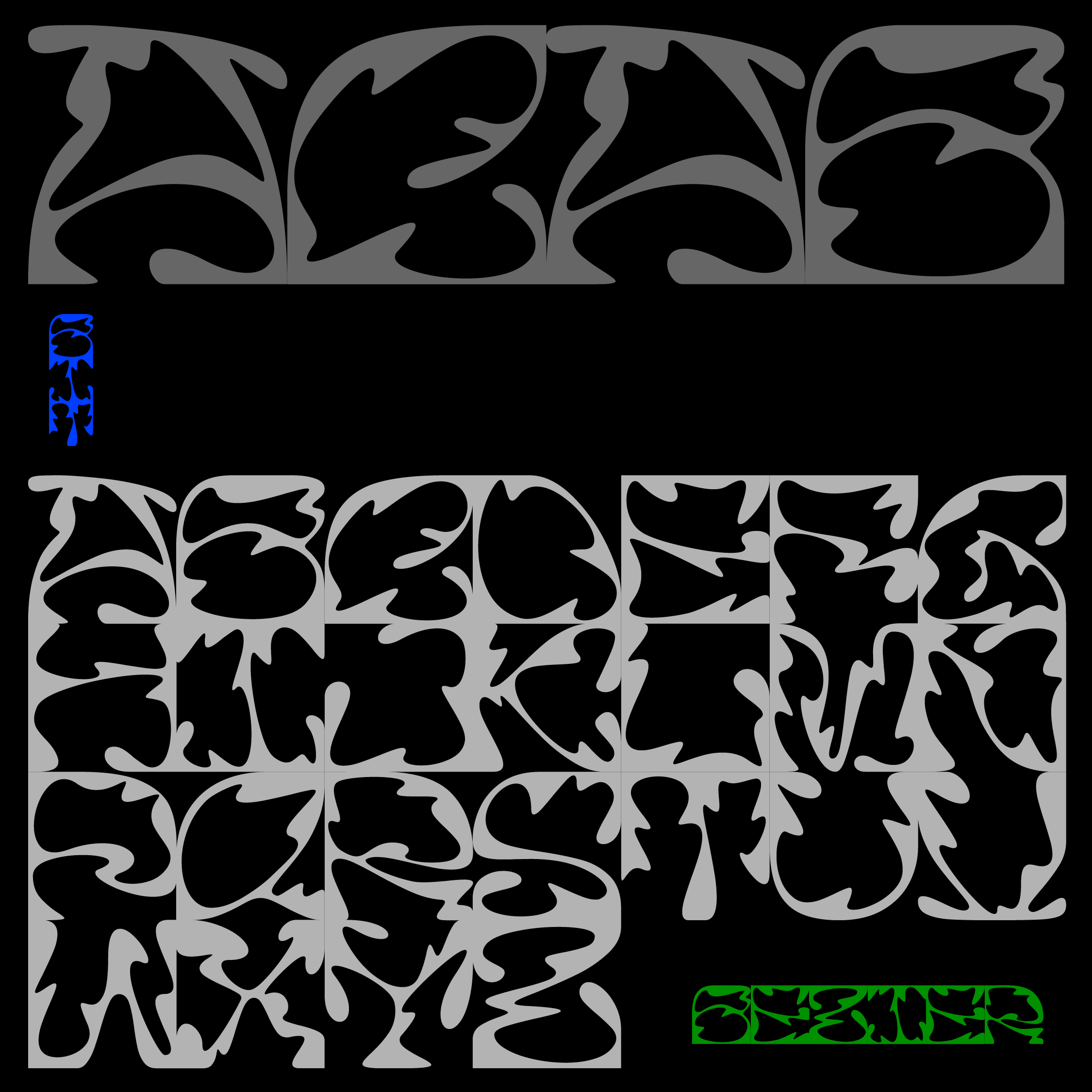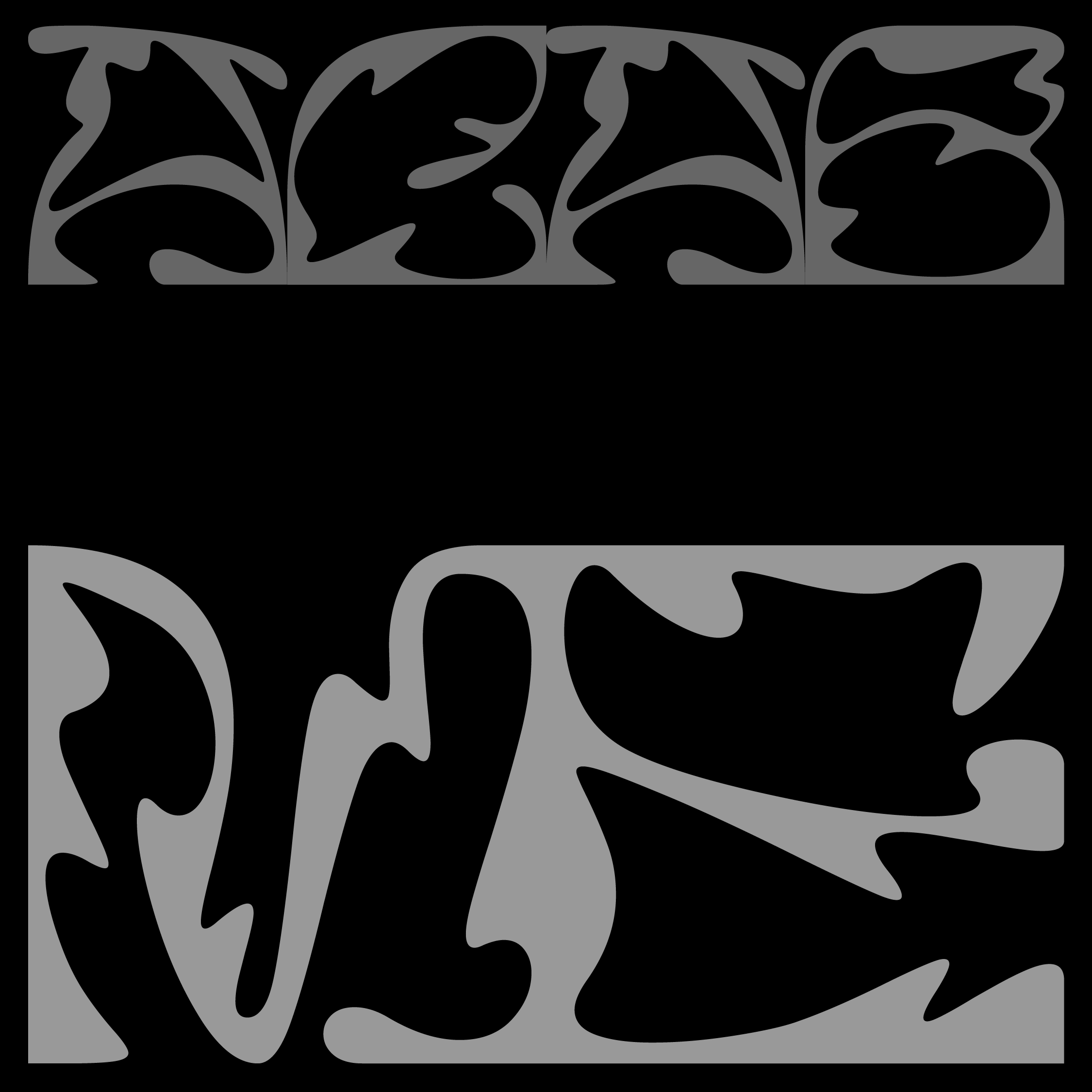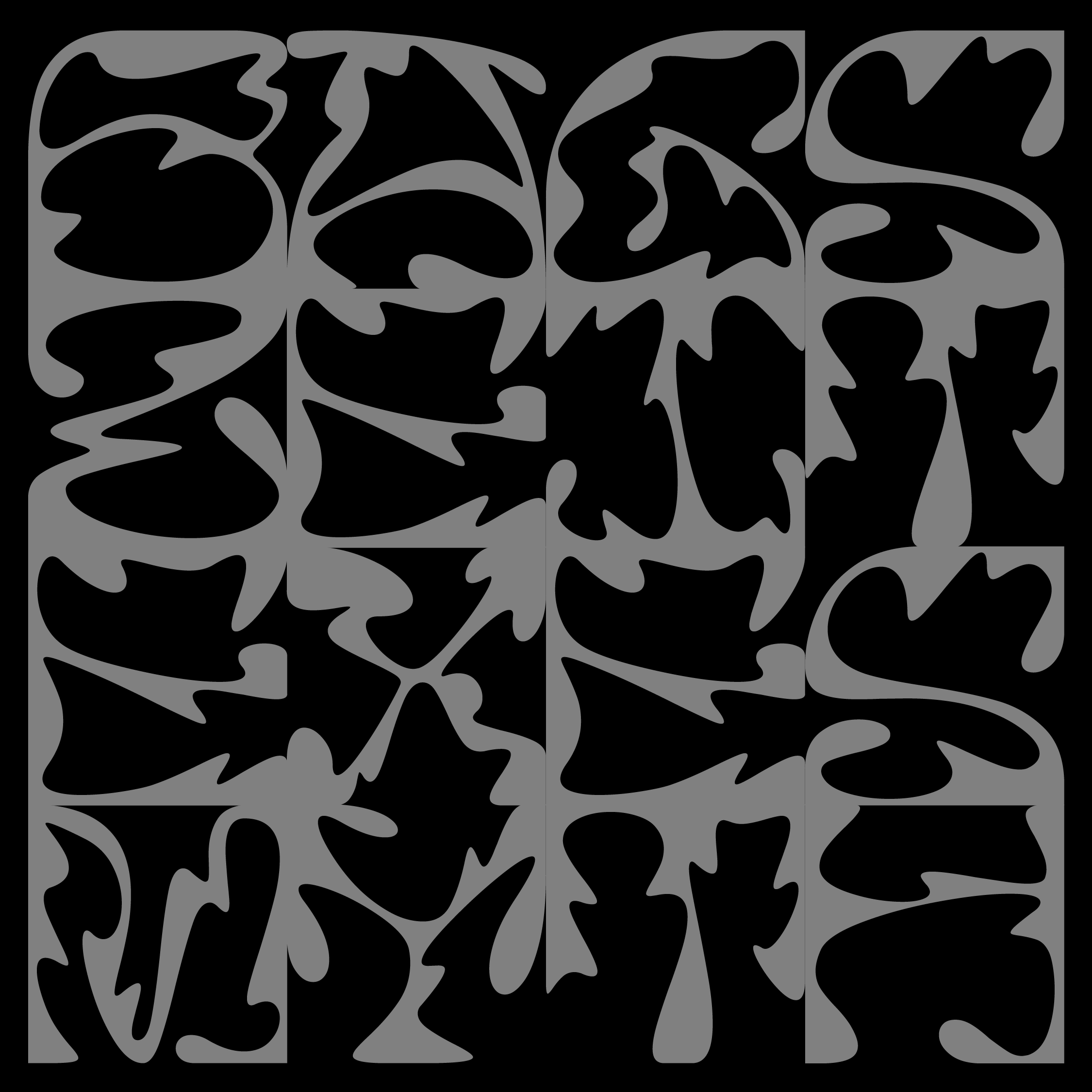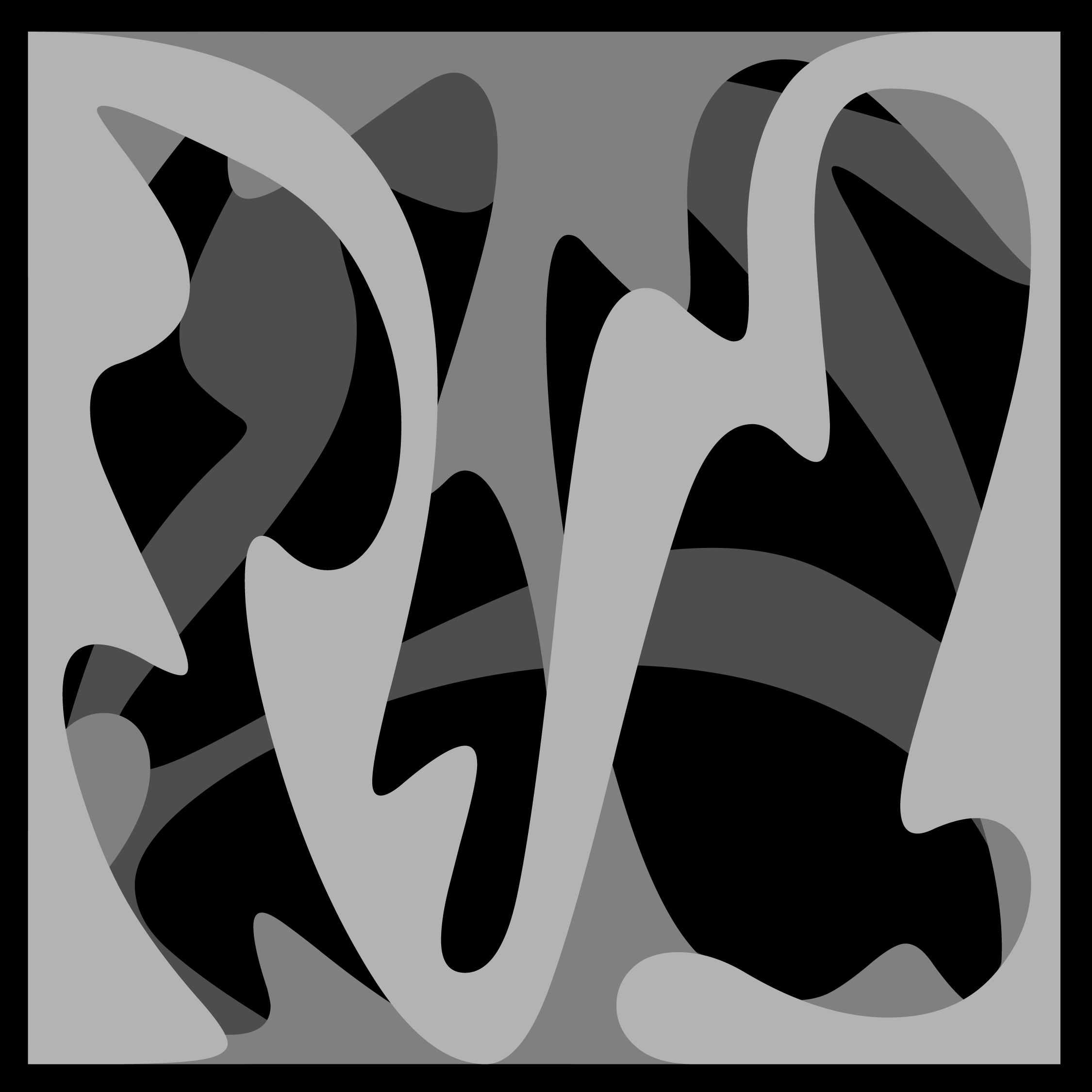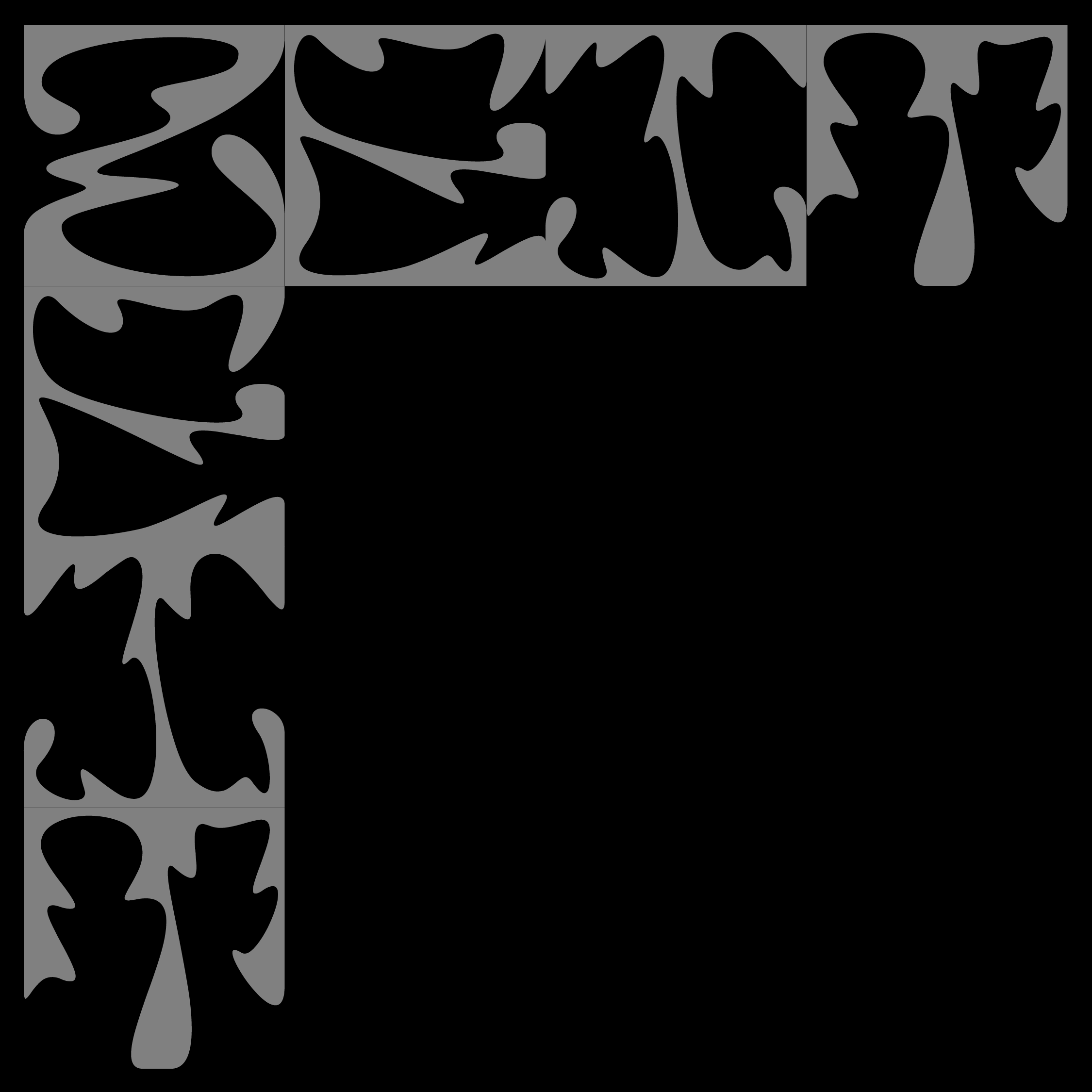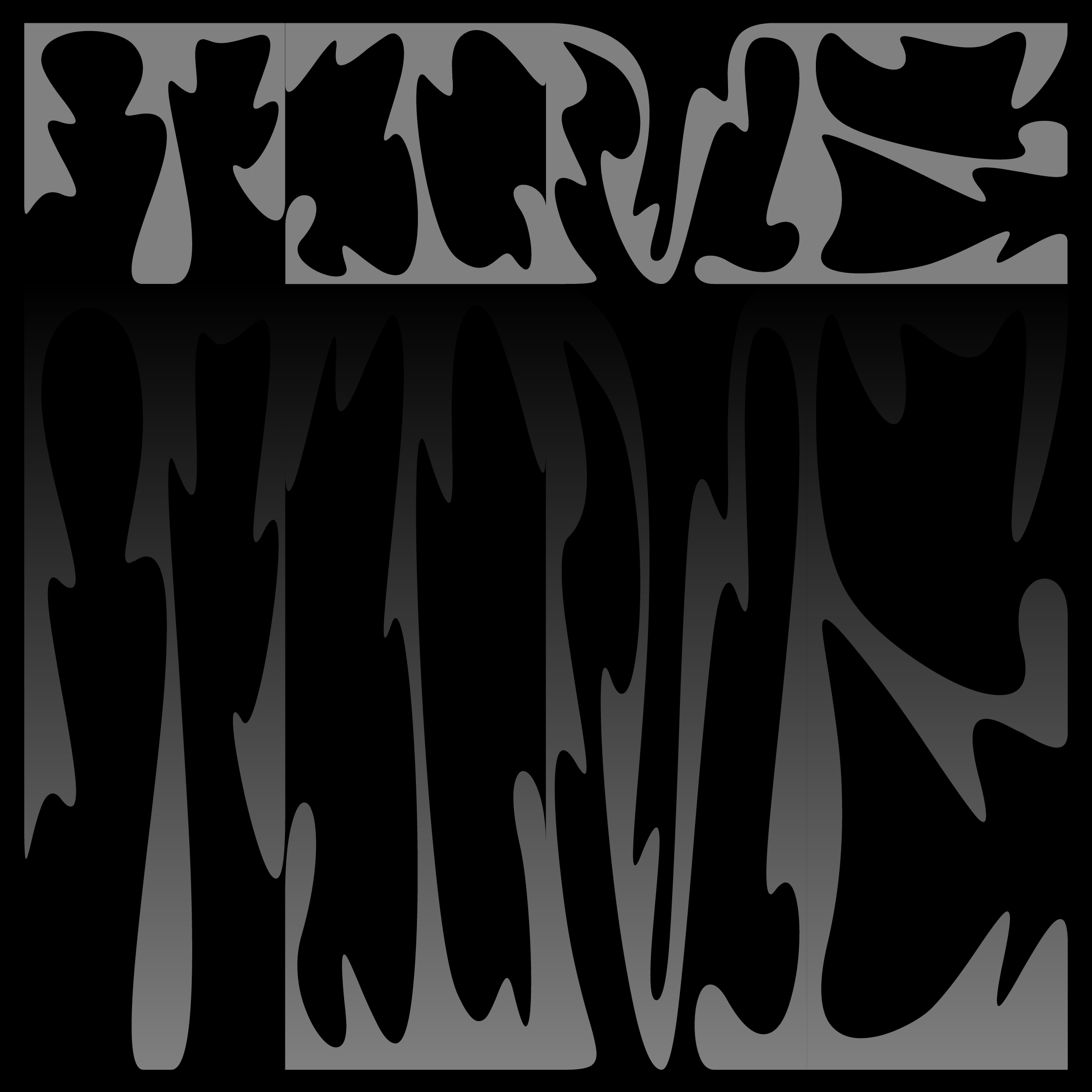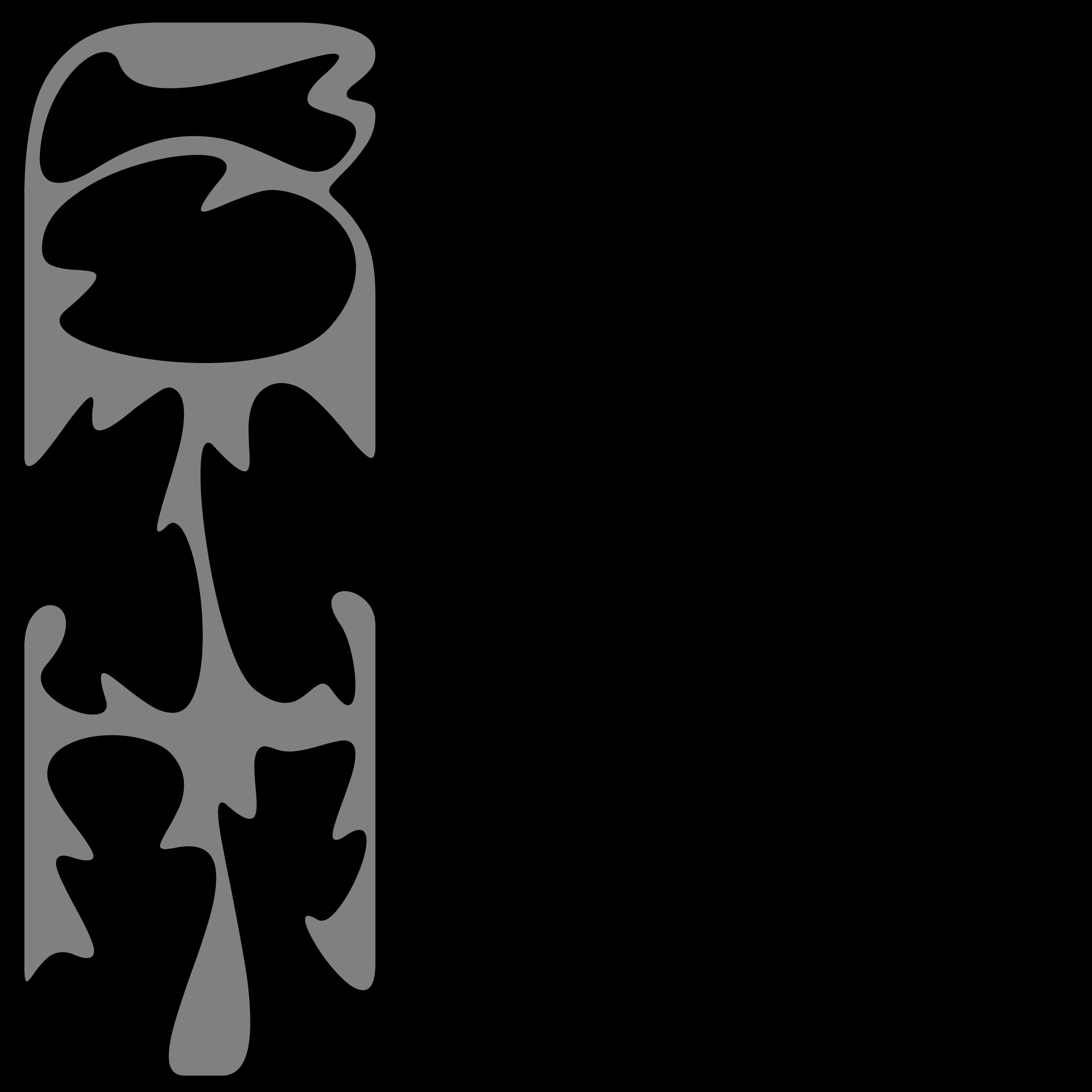
Bezier Typeface
Bezier is a typographic tiling system. Its mono-modular design allows the letters to flow together horizontally and vertically with zero spacing. It gives typographic compositions a freeform and liquid look, while still building a perfect grid. All curvy! All non-connector lines in Bezier are smooth curves.
Designed for experimental layouts and modular typography, Bezier lets you create seamless, continuous compositions where text behaves like a pattern. Its grid-based logic combined with fluid curves makes it ideal for bold visual systems, posters, branding, and digital design.
Perfect for designers exploring generative design, typographic patterns, and abstract compositions, Bezier turns text into a flexible graphic tool while maintaining structure and consistency.